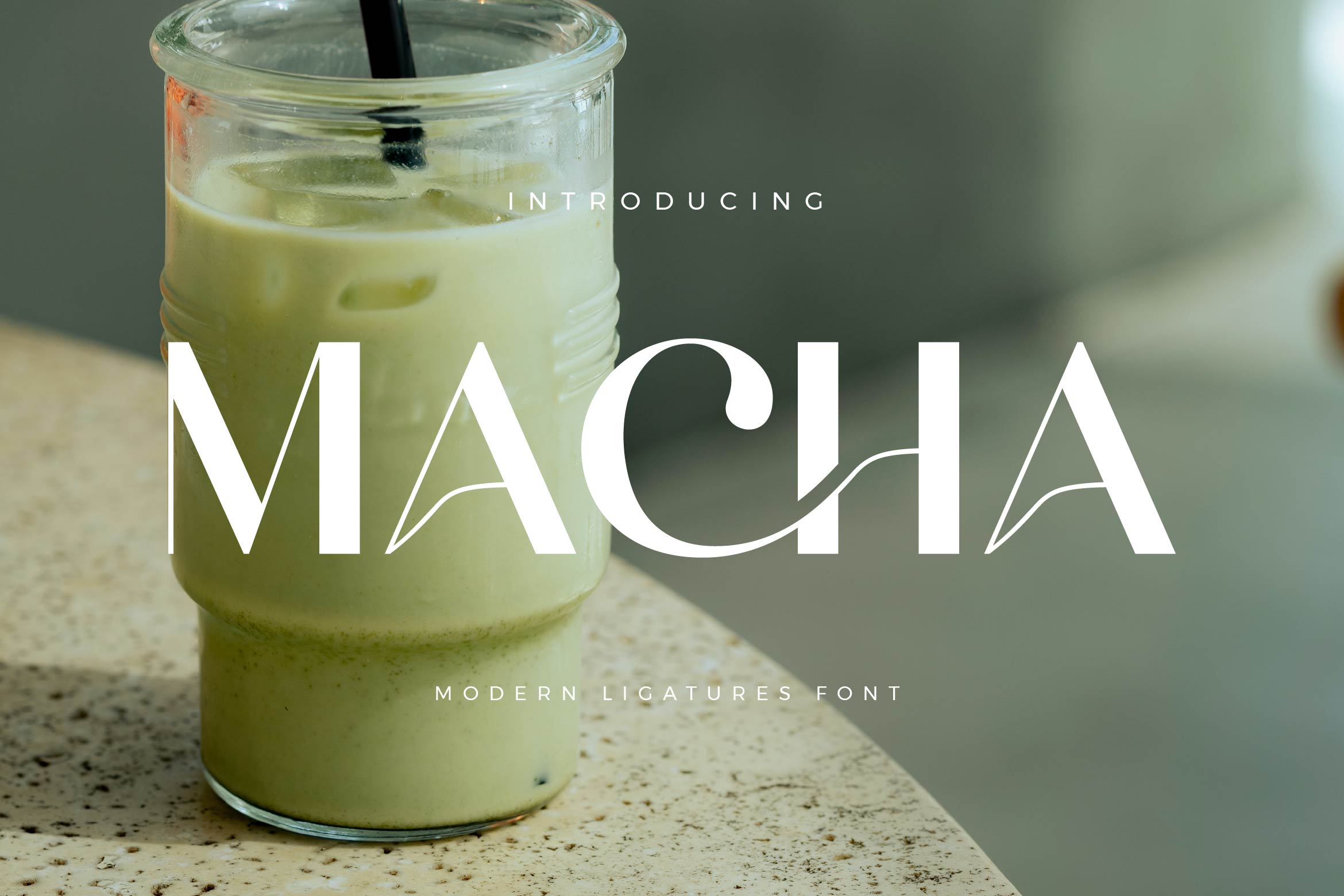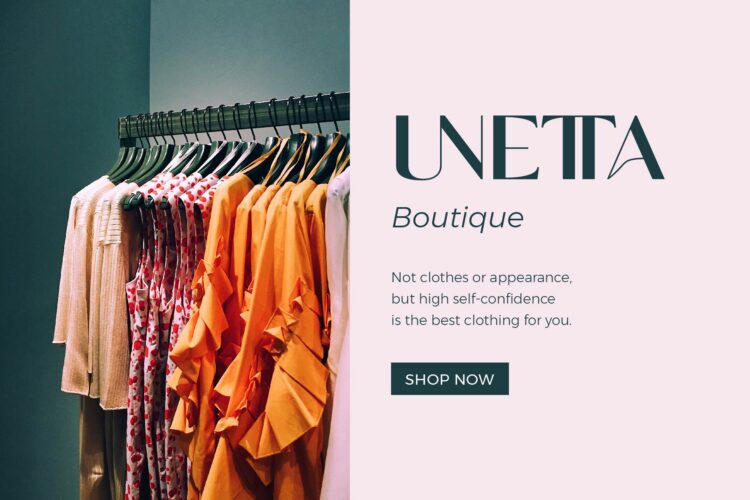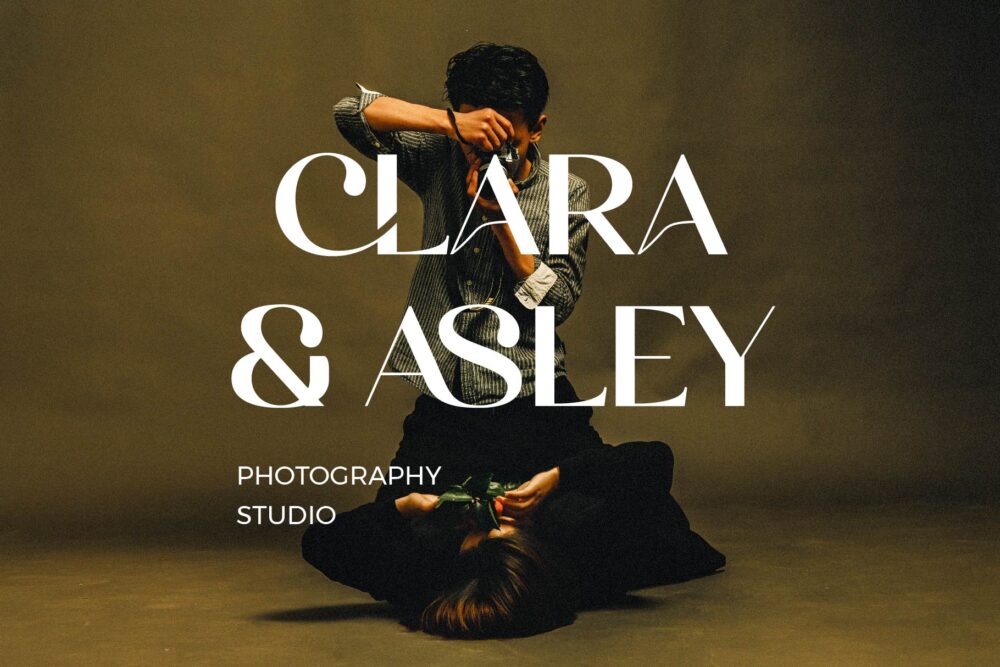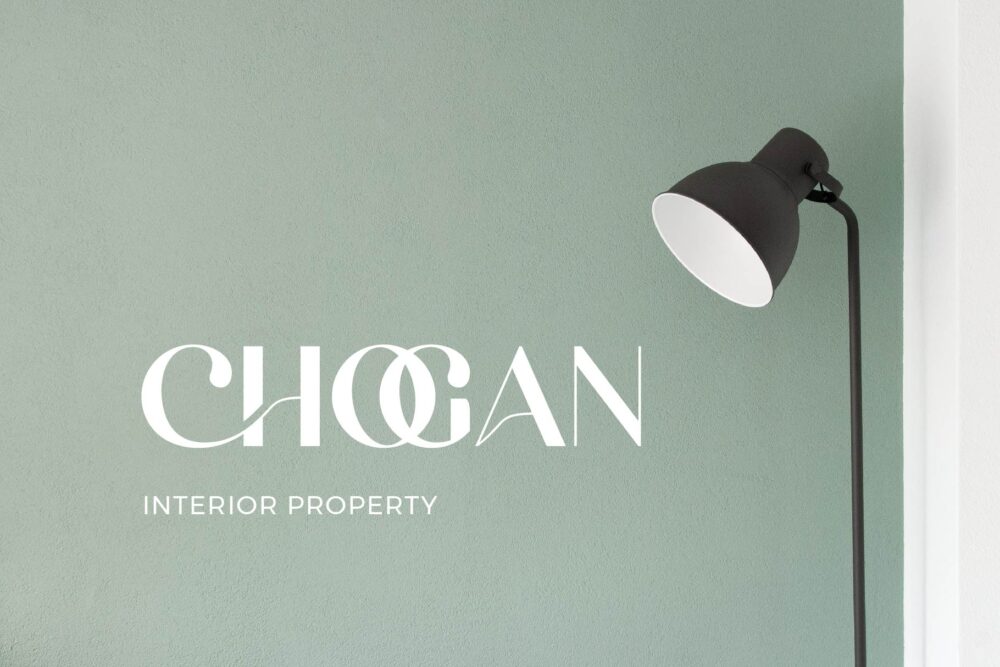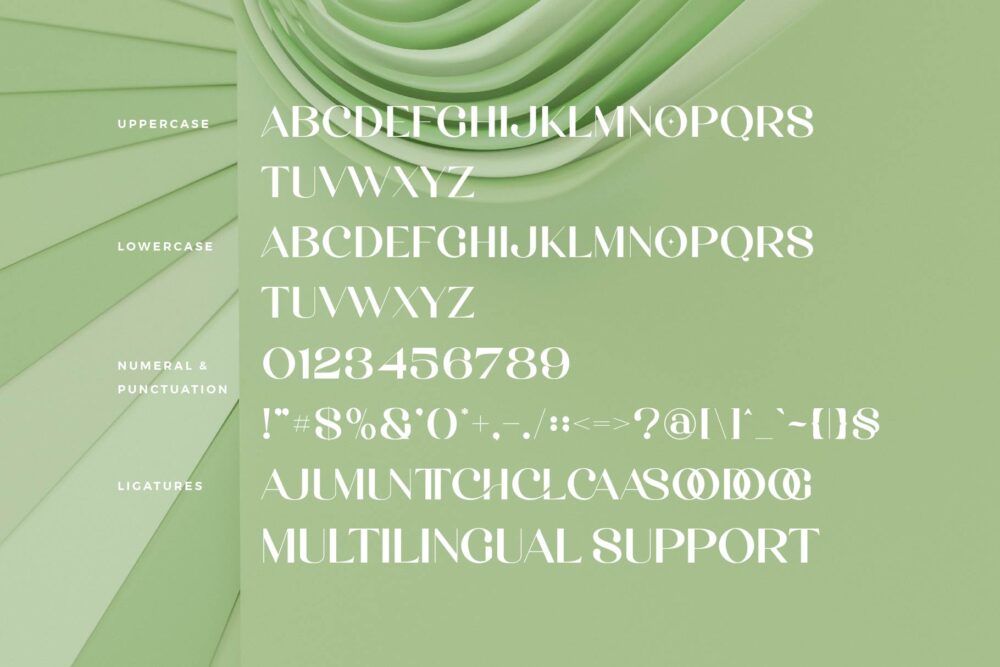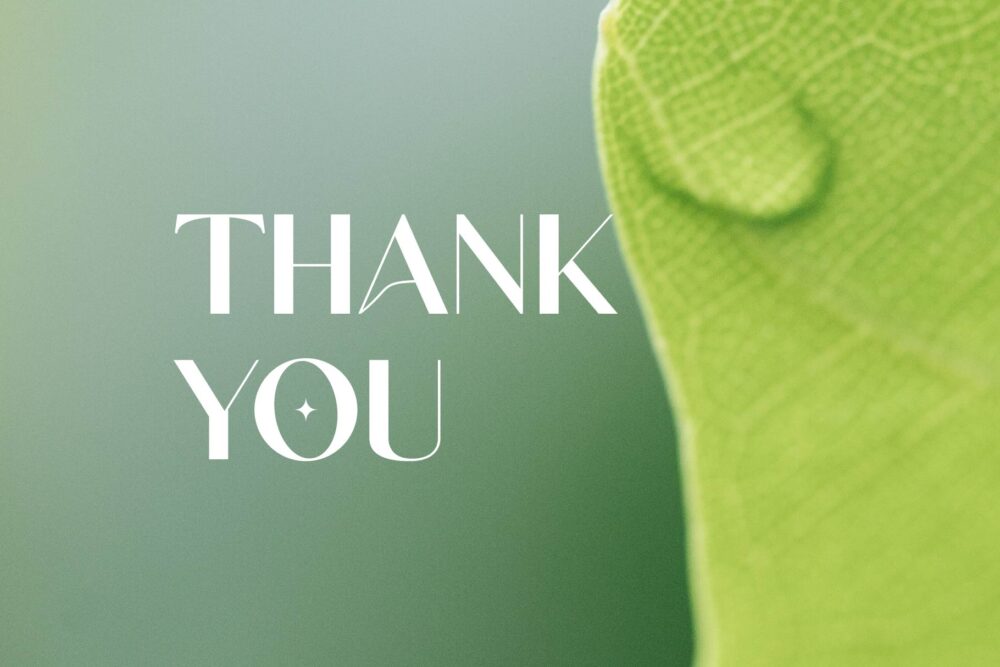
Macha
Macha Sans Font Typeface inspired by the famous minimalist logo perfect for the purposes of designing templates, brochures, videos, advertising branding, logos, invitation, layout design, elegant crafting, beauty design and other.
Macha – Modern Sans Serif Font